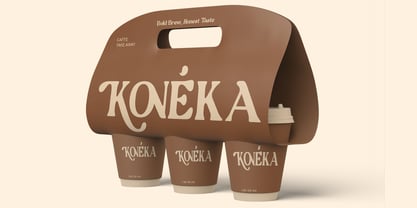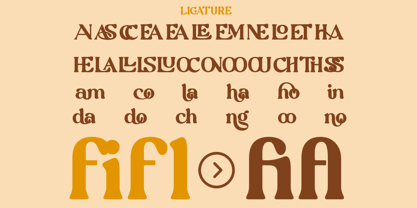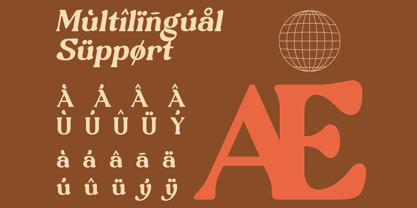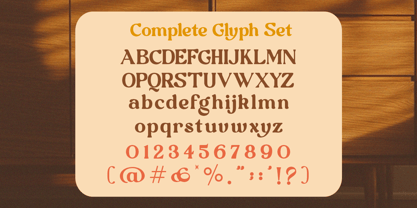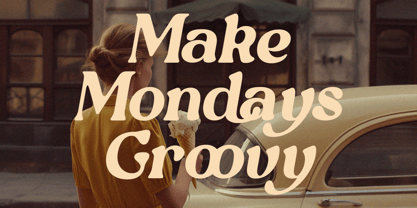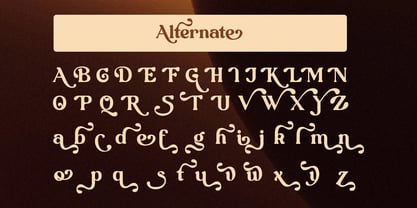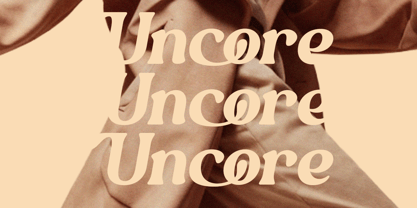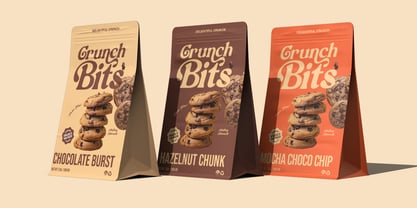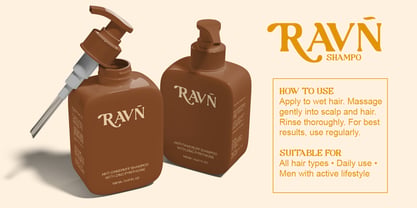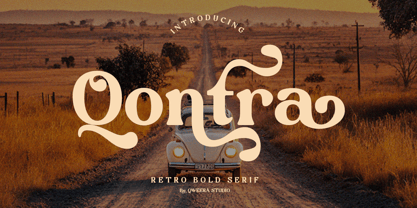
Qontra
by Qweera Studio
The Qontra Font Family was designed by Idhham Cholid Rikzano Yahya and published by Qweera Studio. Qontra contains 2 styles and family package options. More about this family
Qontra is a retro bold display serif designed to deliver strong visual impact and nostalgic appeal. Its expressive curves and decorative elements create a distinctive vintage identity. Ideal for branding, posters, and packaging, Qontra offers flexibility with alternates, ligatures, and multilingual support. Built for designers seeking bold, retro-inspired typography with professional quality. Features Alternates Ligatures Multilingual support Decorative swashes Professional kerning Specifications Language Support: Western, Central Europe Features: Alternates, Ligatures Recommended For Vintage branding, poster design, packaging design, signage, creative typography, retro identity systems
Designers: Idhham Cholid Rikzano Yahya
Foundry: Qweera Studio